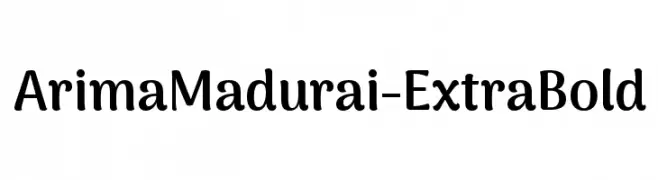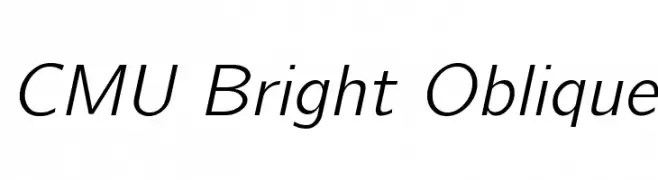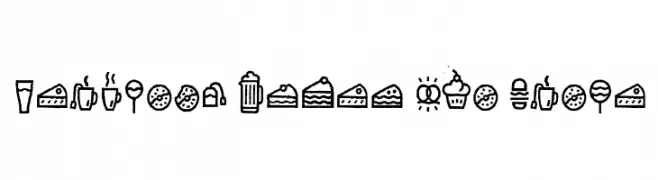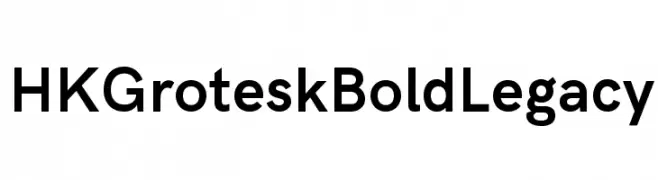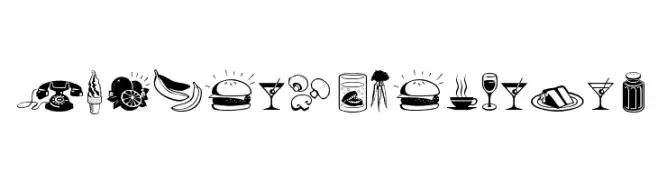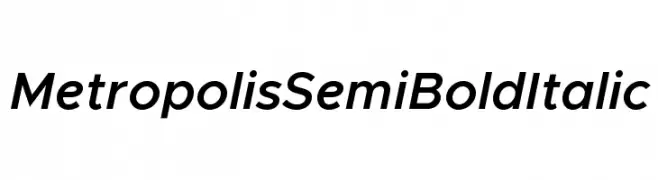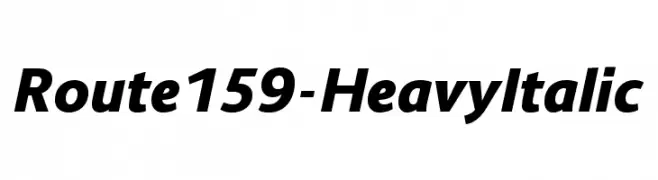
A bold, italicized font with a dynamic and assertive style.
A modern, oblique font with clean lines and uniform stroke width.
A modern, versatile font with clean lines and a friendly appearance.
A bold, rounded font with a playful yet sophisticated style.
A bold, italic font with a dynamic and modern style.
A bold, modern sans-serif typeface with clean lines and strong readability.
A modern, semi-bold italic sans-serif font with clean, geometric lines.
A playful collection of bold, illustrative dingbats featuring objects and animals.
A playful and cohesive set of food and drink icons with a modern, cartoon-like style.